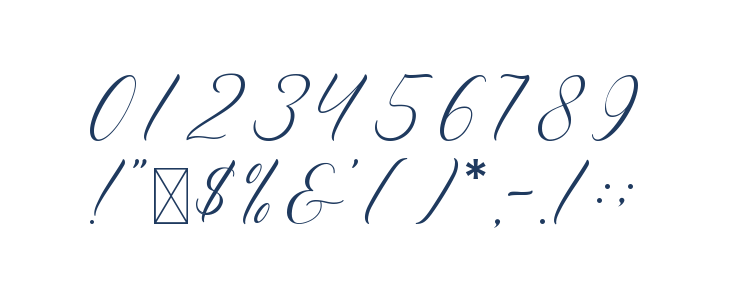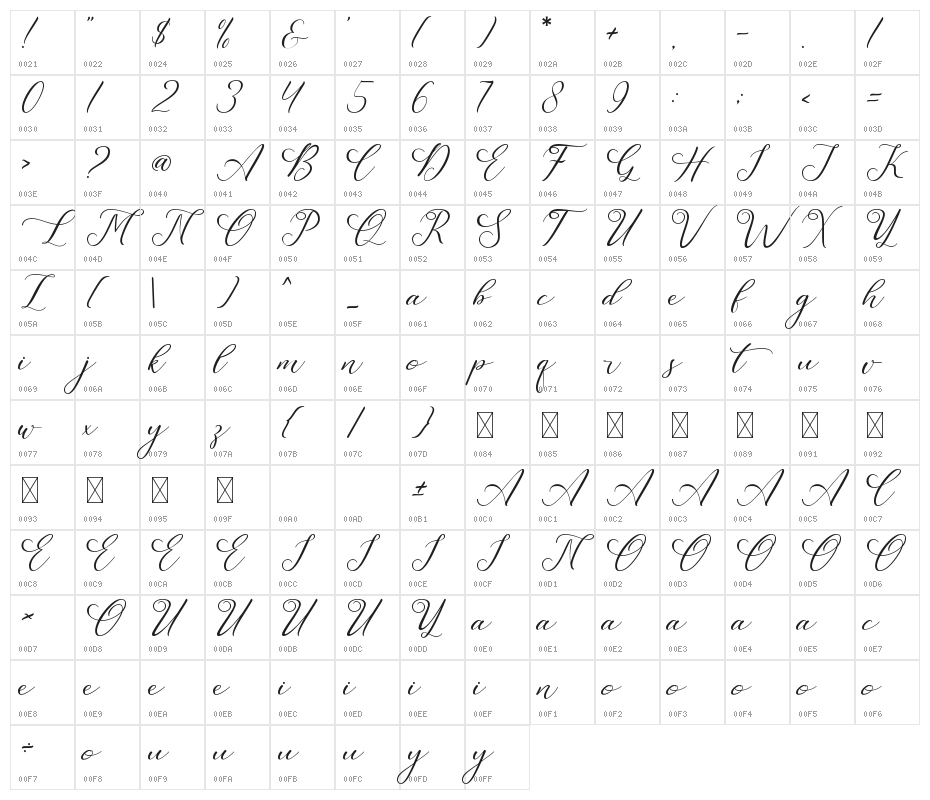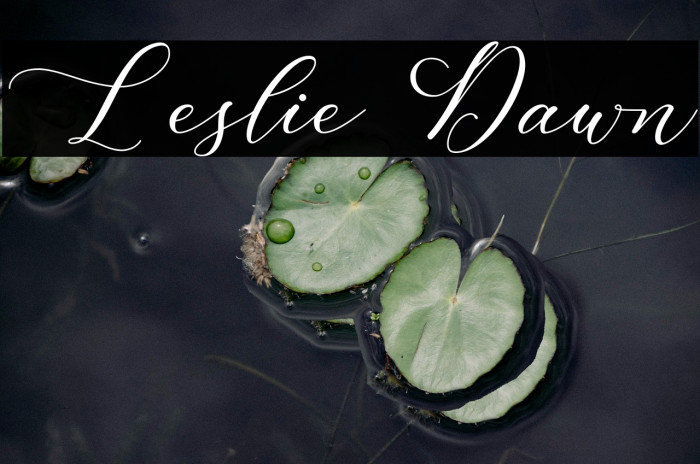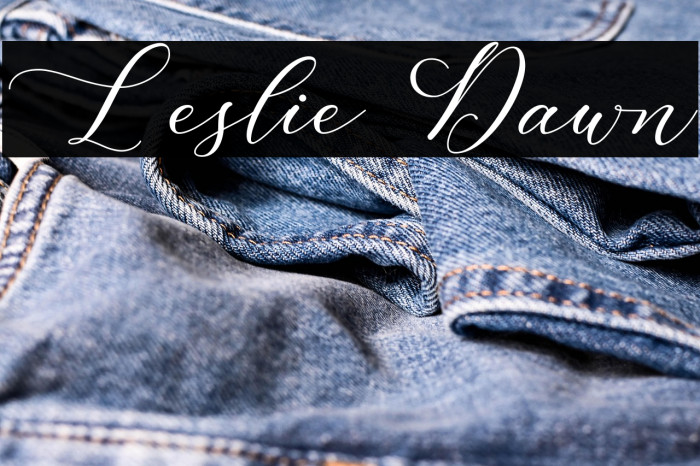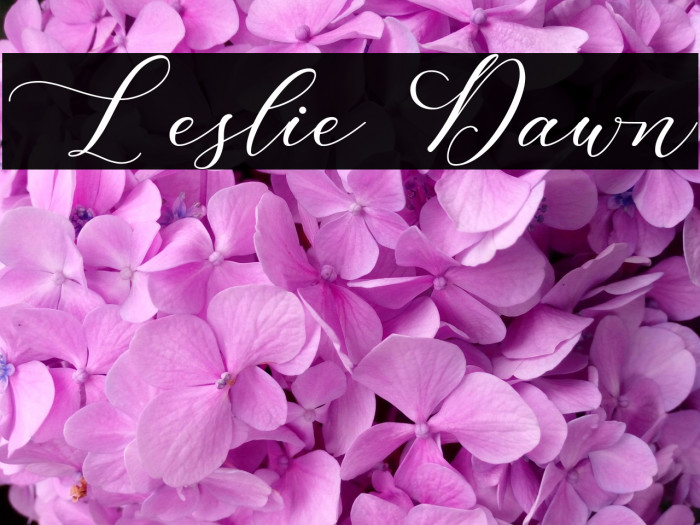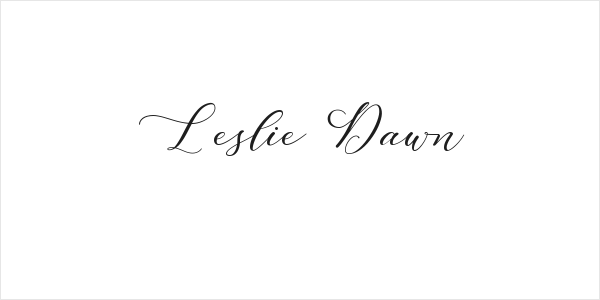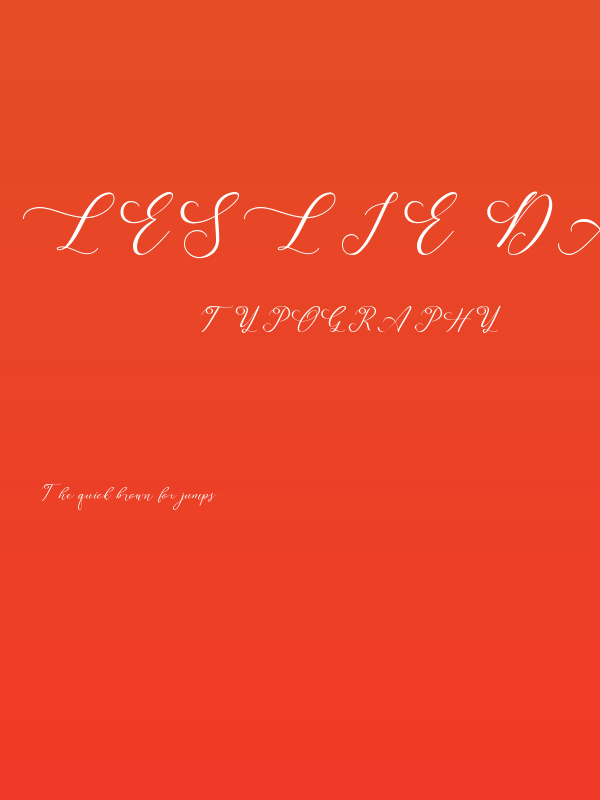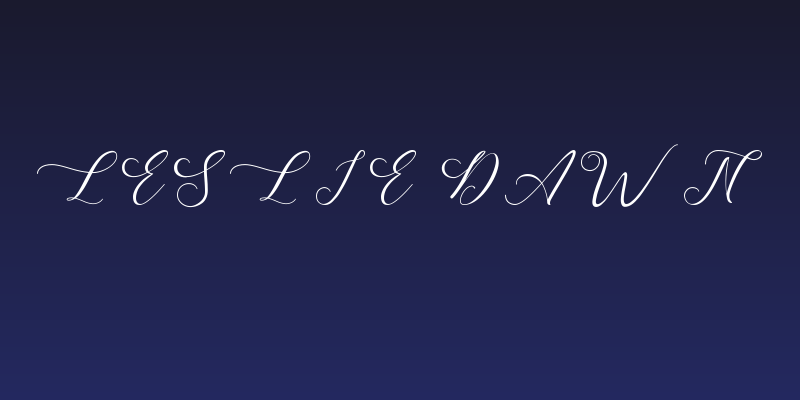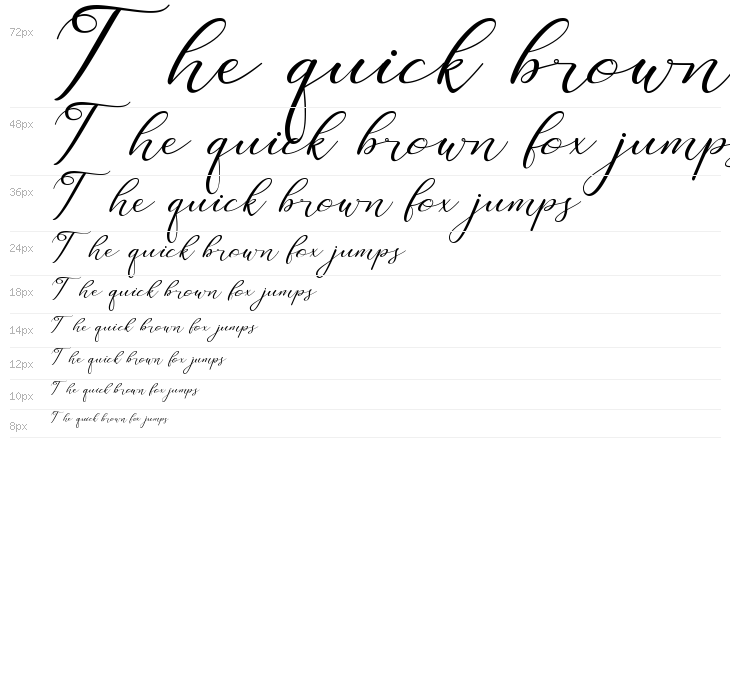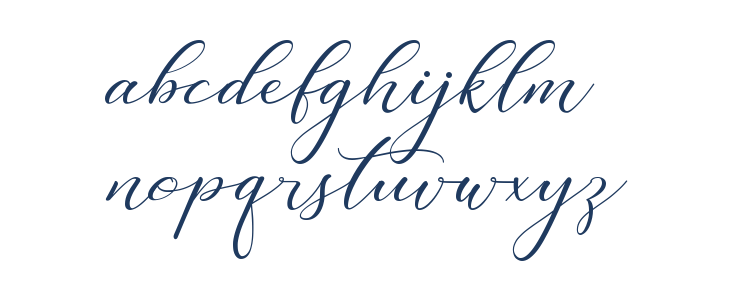
Leslie Dawn Font
Leslie Dawn Description
This elegant script font features a flowing, cursive style with delicate, sweeping strokes that convey a sense of grace and sophistication. The uppercase letters are characterized by their intricate loops and flourishes, while the lowercase letters maintain a smooth, connected appearance. The numerals and special characters are designed to complement the overall aesthetic, maintaining the same fluidity and elegance. This font is perfect for projects that require a touch of class and refinement, such as wedding invitations, formal event programs, or luxury branding.
| Overall Style | Elegant, Sophisticated |
| Use Case | Headlines, Invitations, Branding |
| Proposed Projects | Ideal for wedding invitations, formal event programs, luxury branding, and elegant stationery. |